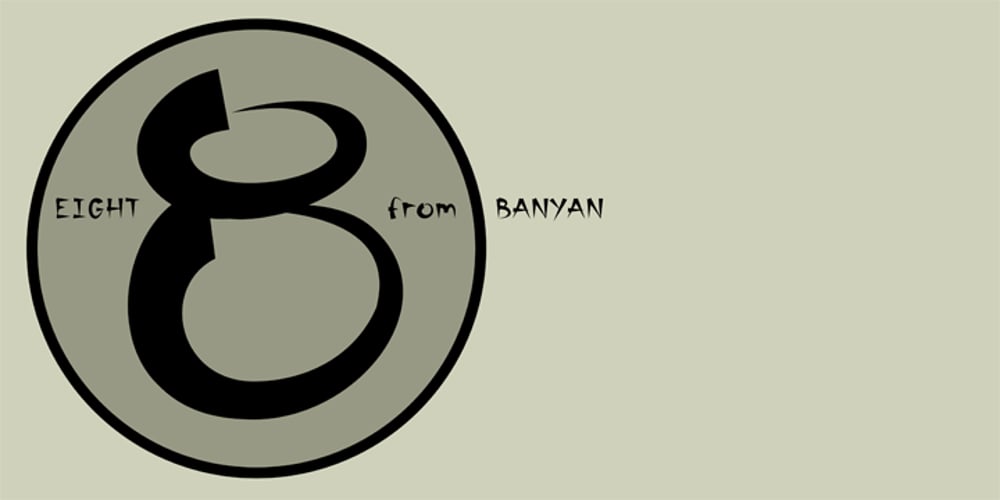
Banyan
Banyan font
Banyan Font Family was designed by Alec Julien and published by Haiku Monkey. Banyan contains 1 styles and family package options. Banyan utilizes dramatic brush strokes to create a paradoxically strong yet delicate face.